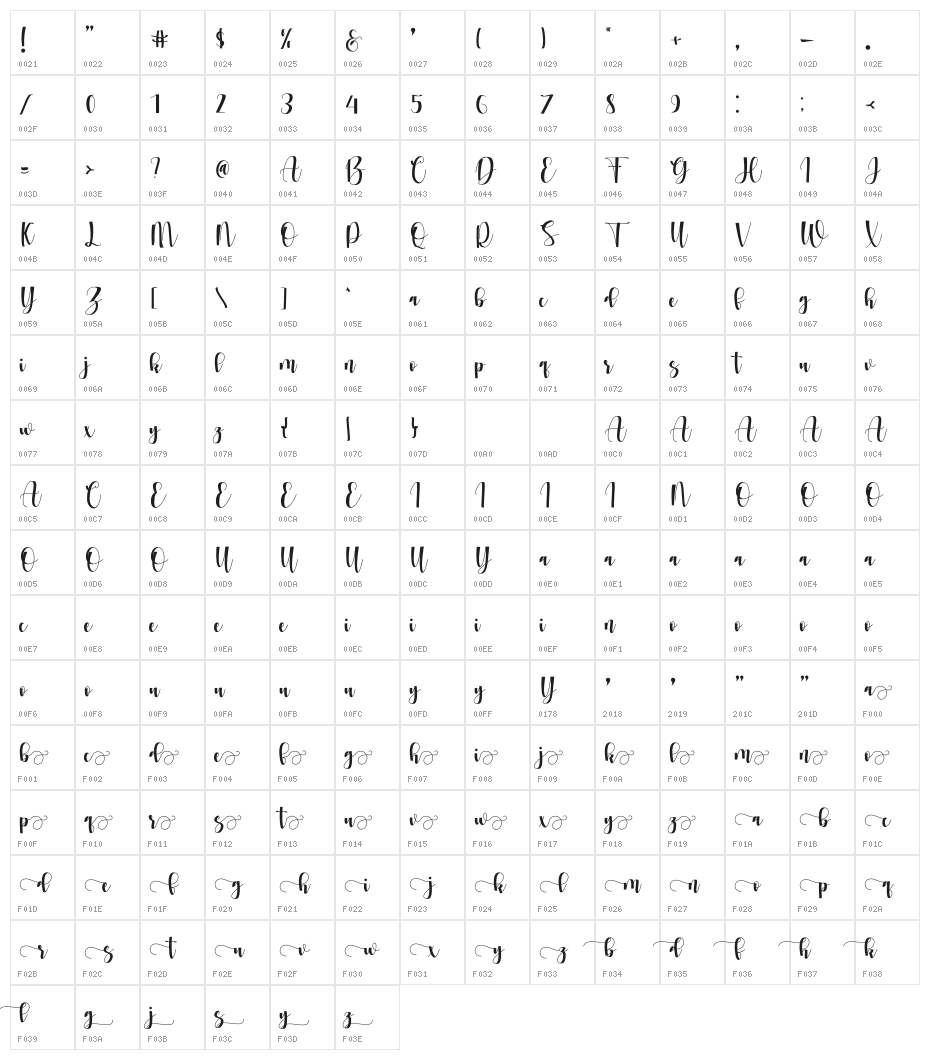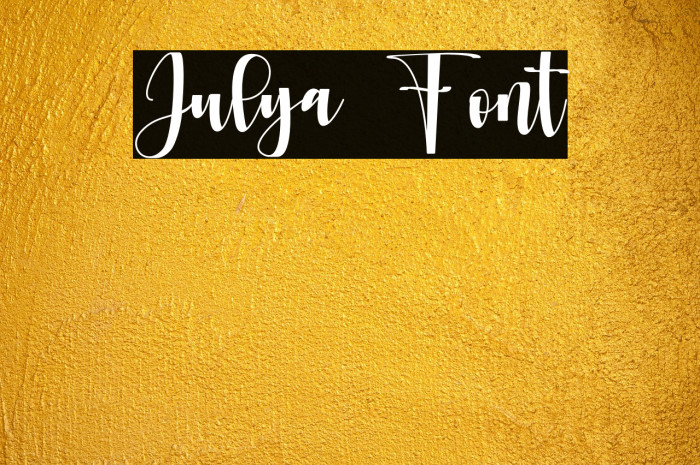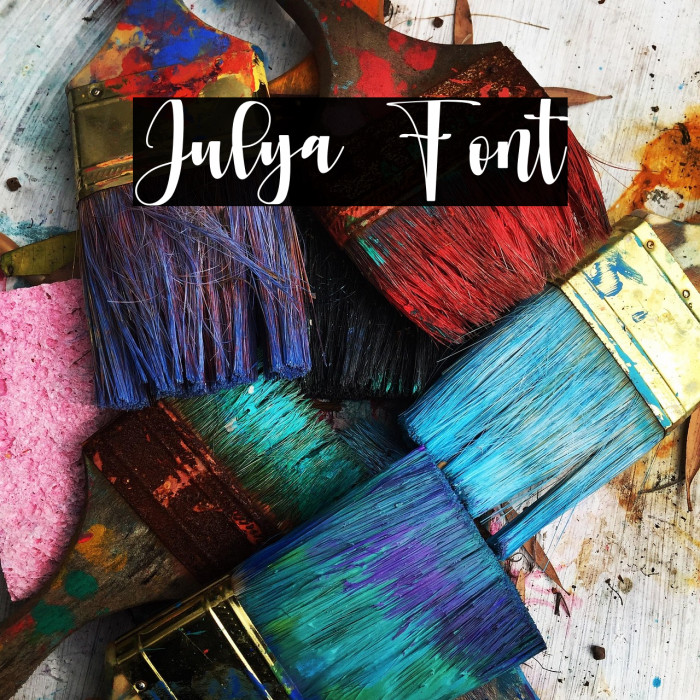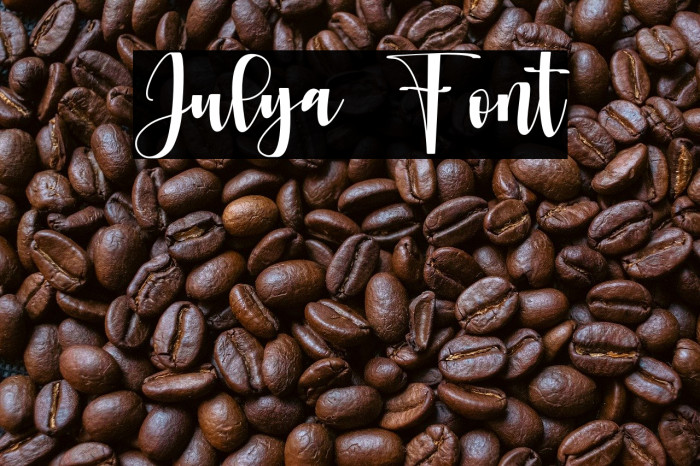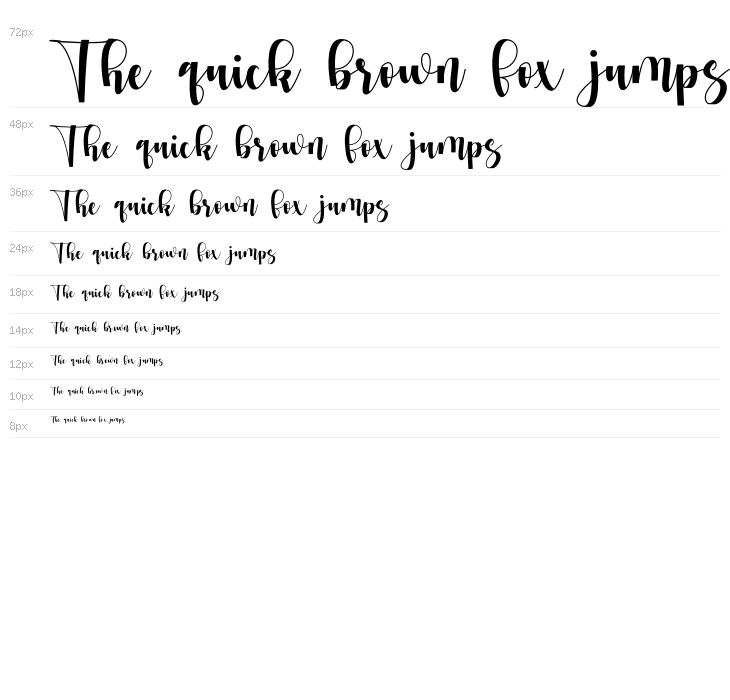
Julya Font
Julya Description
This font features a dynamic and flowing script style, characterized by its elegant and fluid letterforms. The uppercase letters exhibit a graceful, looping structure with a touch of flourish, while the lowercase letters maintain a consistent, cursive flow. The numerals are bold and slightly whimsical, complementing the overall playful yet sophisticated aesthetic. Special characters are designed with the same attention to detail, ensuring a cohesive look across all glyphs. The font's high contrast between thick and thin strokes adds to its dramatic and eye-catching appeal.
| Use Case | Logos, Headlines, Invitations |
| Proposed Projects | Ideal for wedding invitations, branding, greeting cards, and elegant packaging designs. |